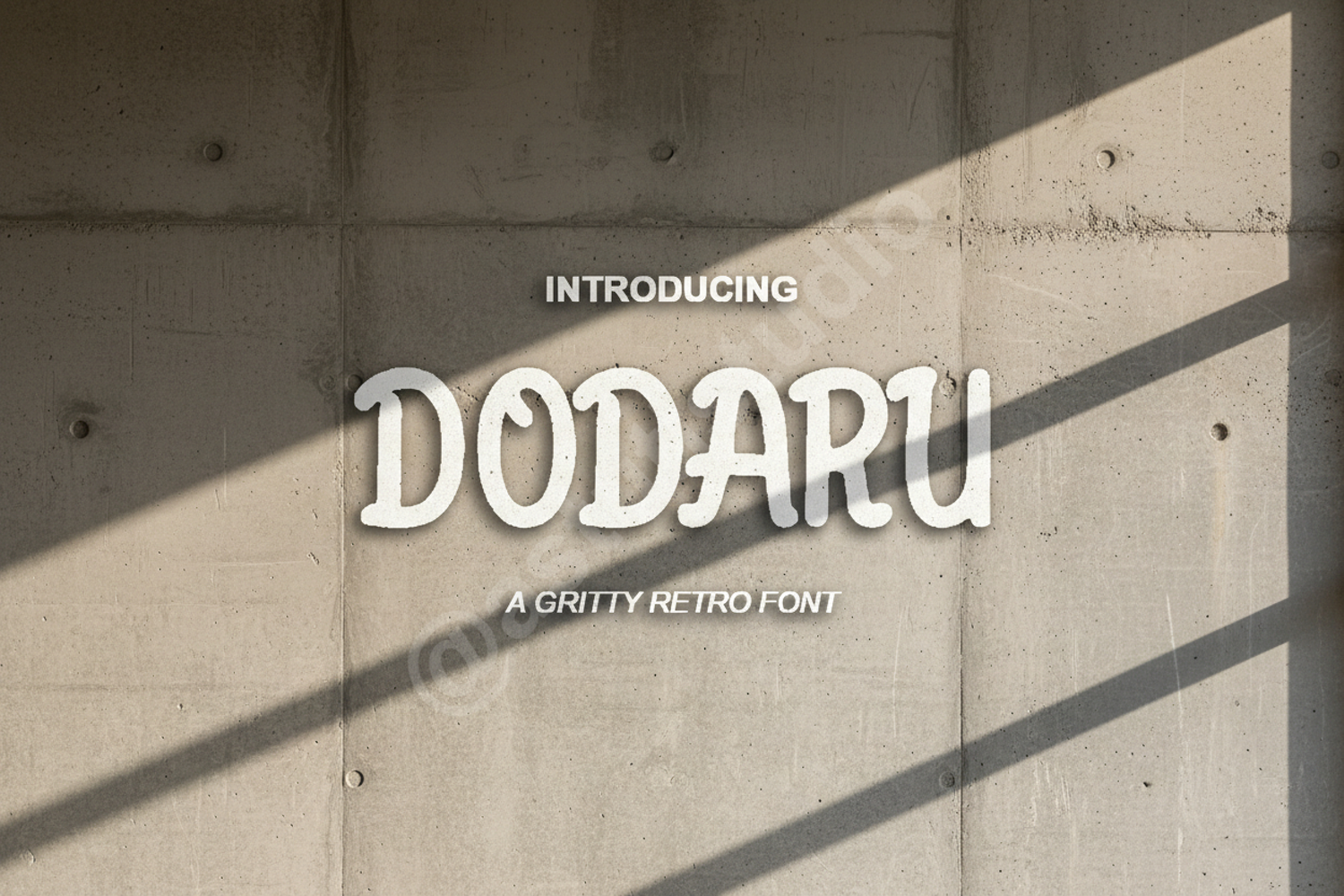
Dodaru - Modern & Versatile Sans Serif Typeface
Dodaru
Dodaru is a premium sans serif typeface meticulously crafted to bring a blend of modern elegance and functional versatility to your design projects. With its clean lines and balanced proportions, Dodaru offers a professional aesthetic that adapts seamlessly to both minimalist and bold creative directions. Whether you are building a brand from scratch or looking for a reliable display font, Dodaru provides the clarity and sophistication your work deserves.
- Branding and Visual Identity: Create memorable logos and brand guidelines with a contemporary feel.
- Editorial Design: Perfect for magazine layouts, headlines, and body text that requires high readability.
- Digital Marketing: Elevate your social media graphics, website headers, and mobile app interfaces.
- Stationery and Print: Ideal for business cards, high-end packaging, and promotional brochures.